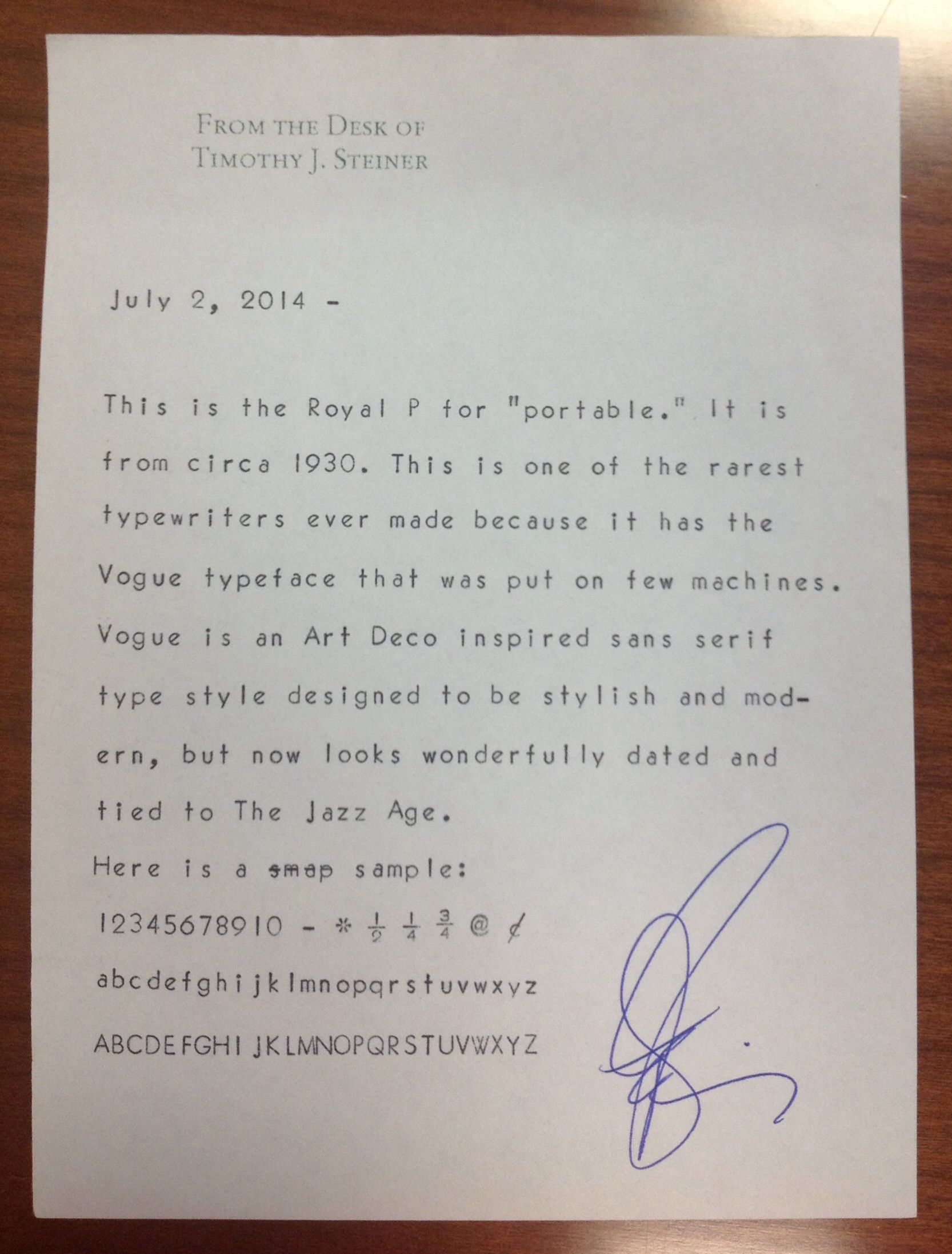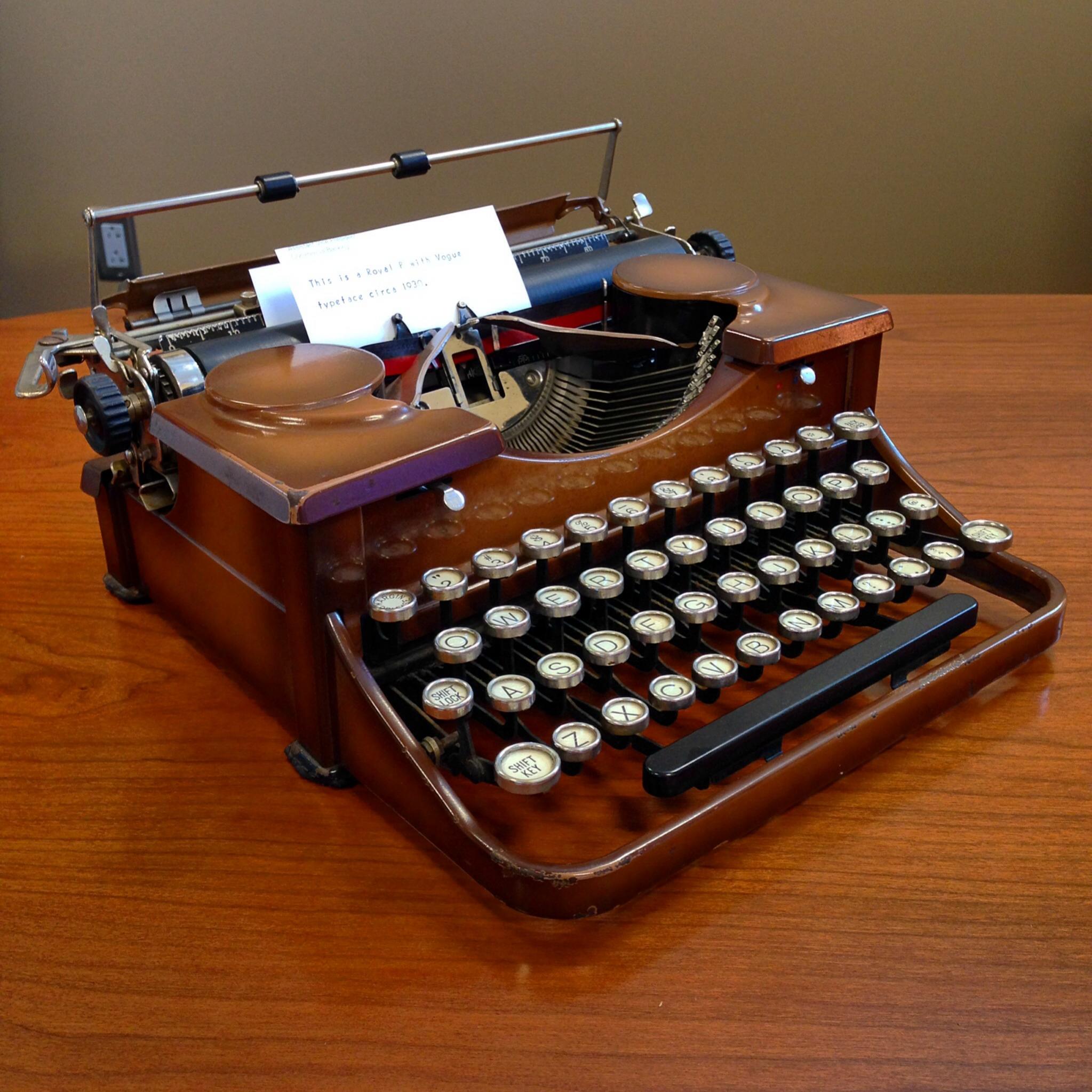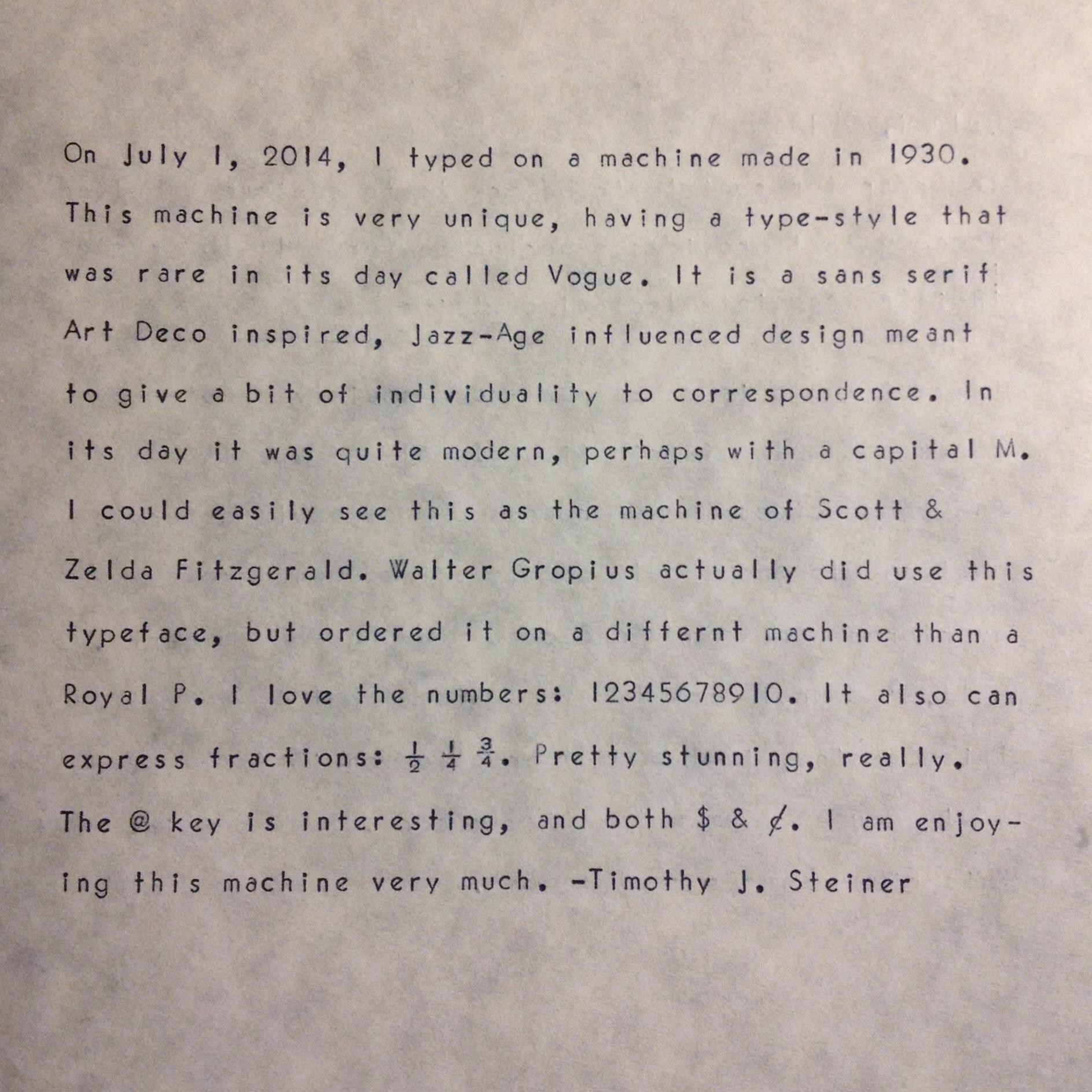
The Royal P with Vogue Typeface - The Rarest Typewriter.
This is the circa 1930 Royal P typewriter with Vogue typeface. It is perhaps the rarest typewriter from US companies.
Mine is a lovely Duotone brown into tan color. It is far from perfect, but types well.
Vogue was a Jazz Age typeface meant to be edgy and modern in its day and now is charmingly associated with the Art Deco era. This is the font of a dinner invitation from Scott & Zelda Fitzgerald, the same font used for skyscrapers, and magazines of the era; perhaps even Vogue.
These are very difficult to find and becoming more so with jewelry makers and Steampunk aficionados destroying much of the available stock of old typewriters. This typeface was on very few machines even then.
I have searched for one of these for a very long time.
How does one know if this type face is in a machine, short of knowing which machines it came in?
The easiest way to know if it is in a machine is to type with it, obviously.
If it is on an auction house and you cannot, then I would restrict my search to the Royal P. This typeface was designed for these machines and so the law of averages favors you restricting the search to them. Nevertheless, the typeface could possibly be on any machine made between 1929 and 1955 or so; it could be special order, but in the vast majority of cases, it wasn't. I only know of Walter Gropius' Royal HHs having this beside a Royal P.
Ask for a type sample or look at the keys and if they have serifs, or feet, it's not Vogue.
Looks like a very similar type has appeared on a Royal Aristocrat! http://cambridgetypewriter.blogspot.com/2011/11/rare-art-deco-typestyle.html
Leave it to my friend, Tom Furrier of Cambridge Typewriter to find this one.
He also lists its official name with Royal: "Modern Pica Block RA 280."
I bought a Royal typewriter online and it has this typeface. The serial number begins with C so it's a Royal Arrow made between 1940-41. I thought that all manual typewriters had Courier font because I don't remember EVER seeing one with anything different. Imagine my shock when I started typing. I think it hasn't been used in a long time because when I started typing on it, the carriage wouldn't advance at all. It's doing better now that I've been using it for a bit, but it sticks a little bit when you get to the middle of the page, so I probably need to take it to get cleaned.